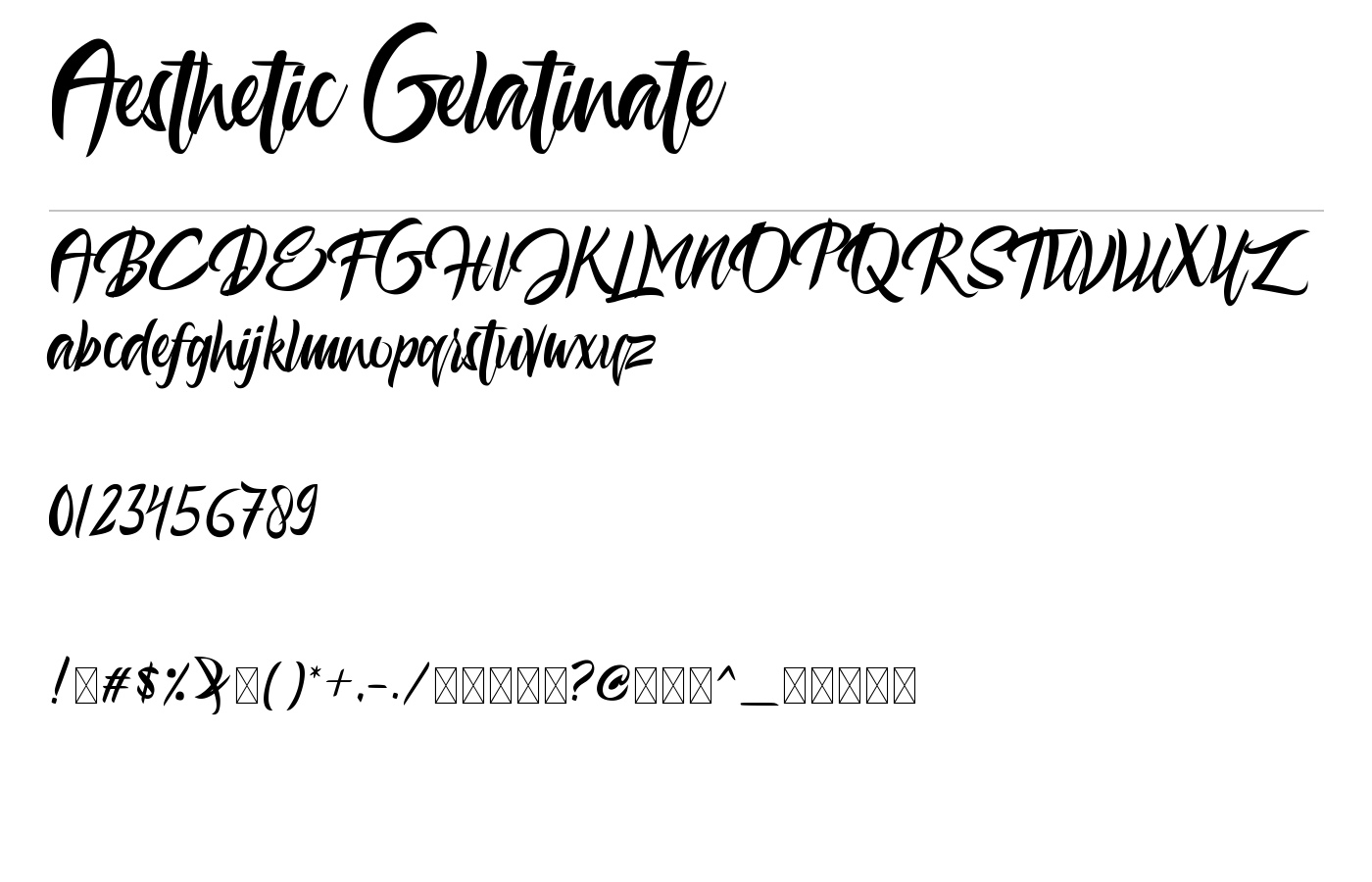
Aesthetic Gelatinate is a lively script font with a smooth, hand-lettered style that combines elegance with a modern flair. Its bold, flowing strokes and high x-height create a striking yet approachable look, perfect for fashion branding, invitations, and creative headlines where a personal, artistic touch is desired. This font works best in designs seeking to convey charm and sophistication with a relaxed, contemporary vibe.
Aesthetic Gelatinate Font
About Aesthetic Gelatinate Font
| Font family | Aesthetic Gelatinate Font |
| Designer | Agni Ardi Rein Prasetyo |